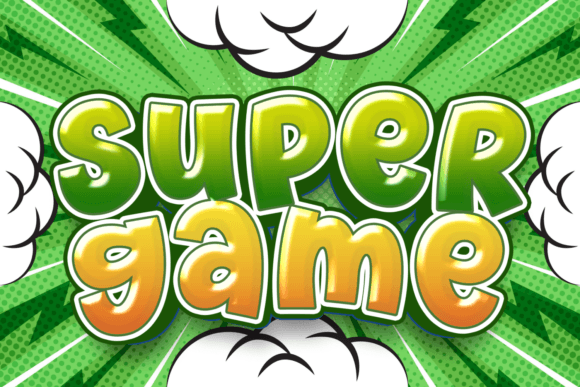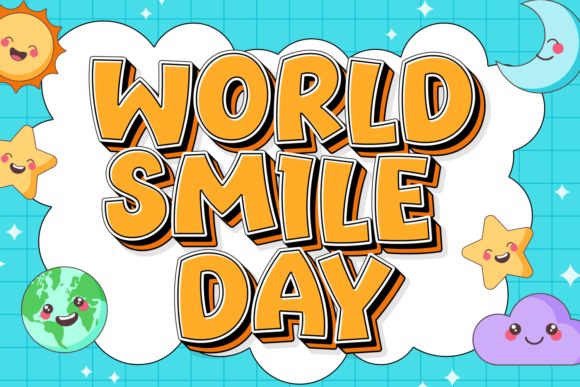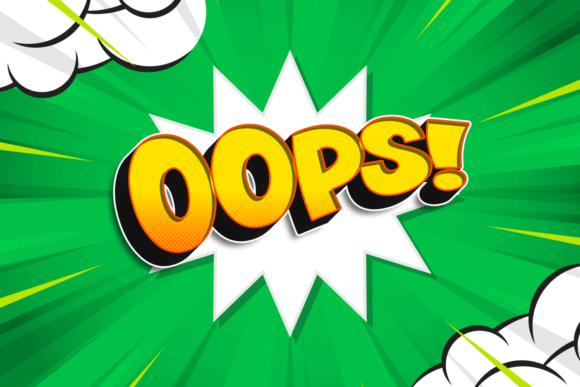
Comic Unique Font
Comic Unique is a cartoon display font. Comic Unique is tailor-made for superhero-themed designs, comic books, movie posters, and any pop culture-related projects. Its dramatic style captures the spirit of adventure and heroism, making it a go-to font for action-packed content.